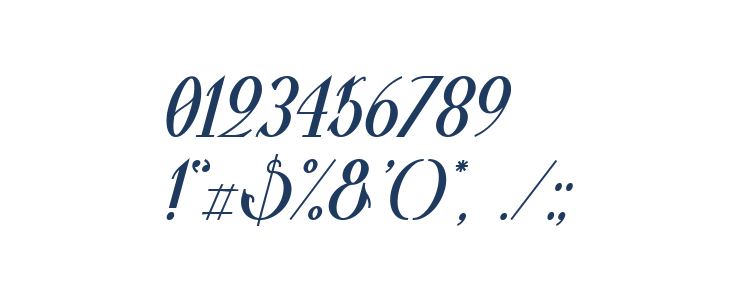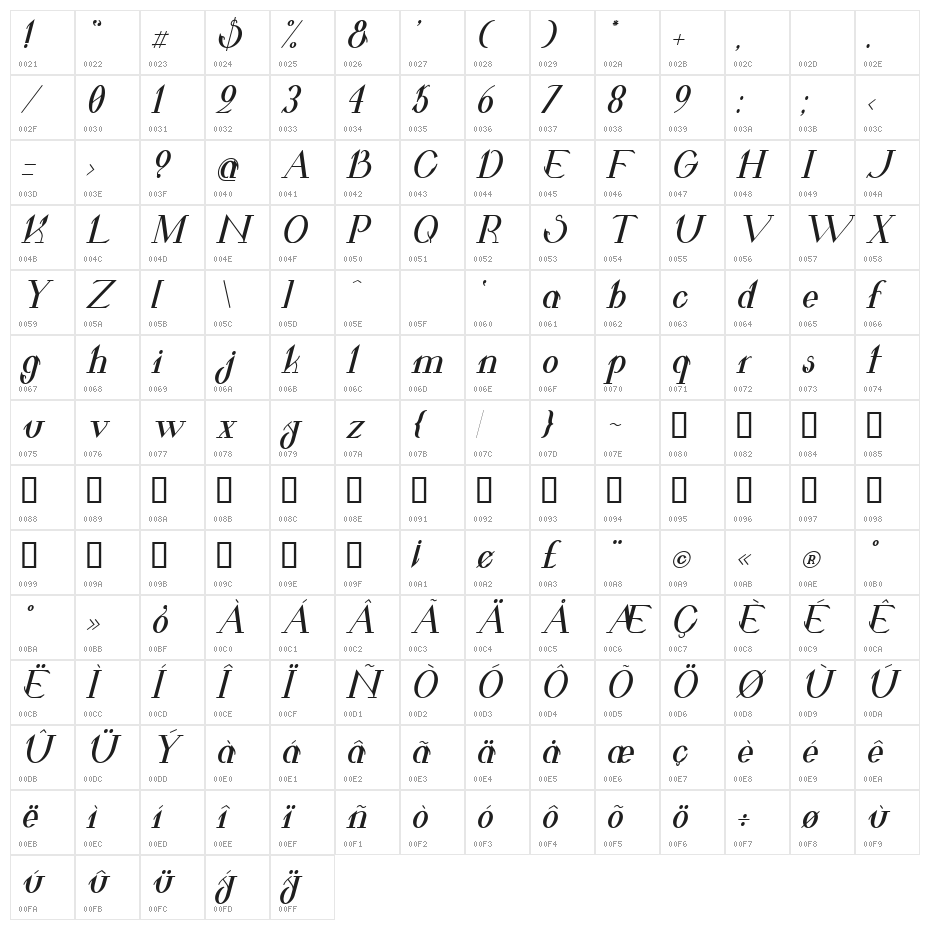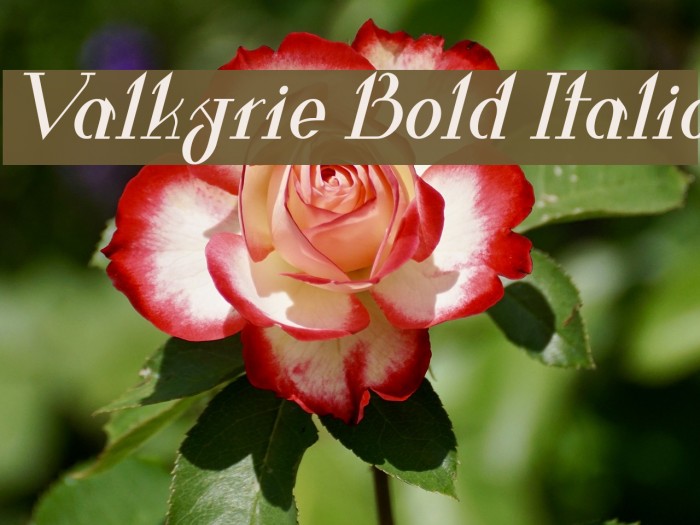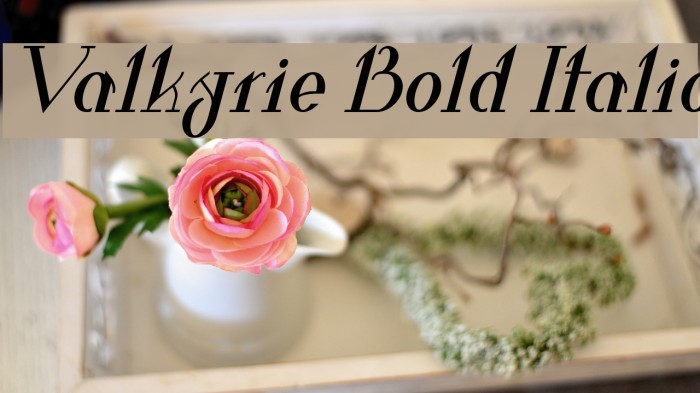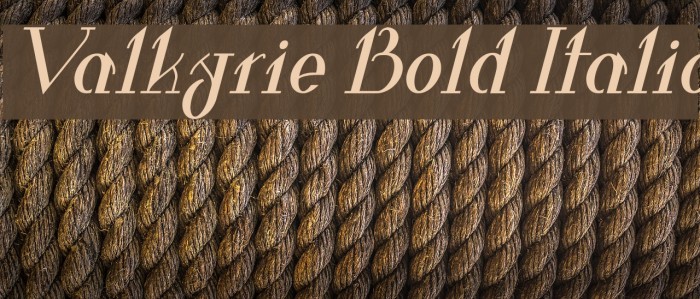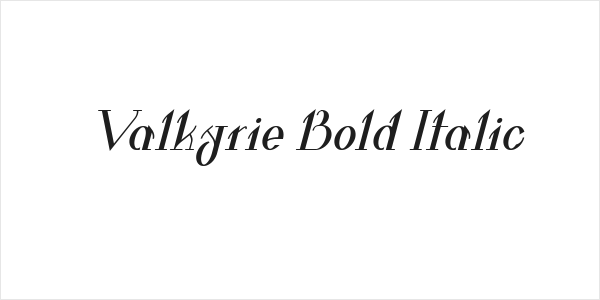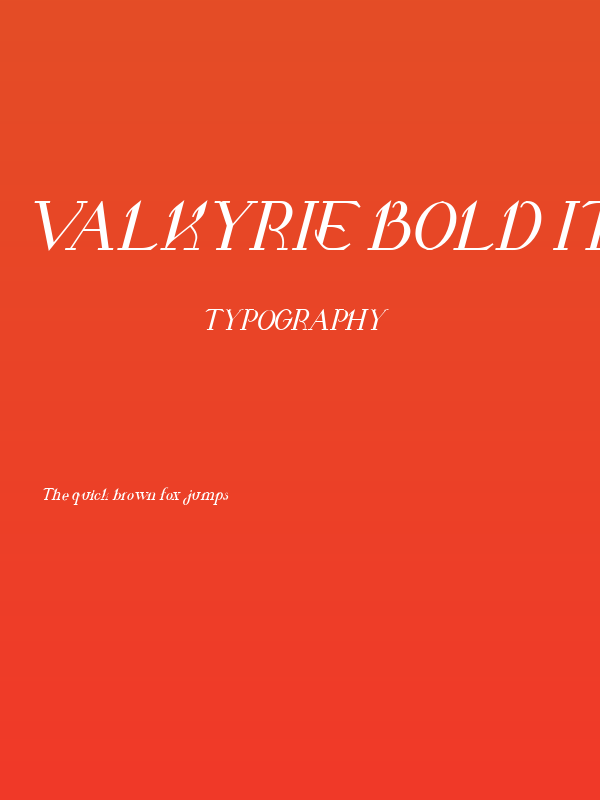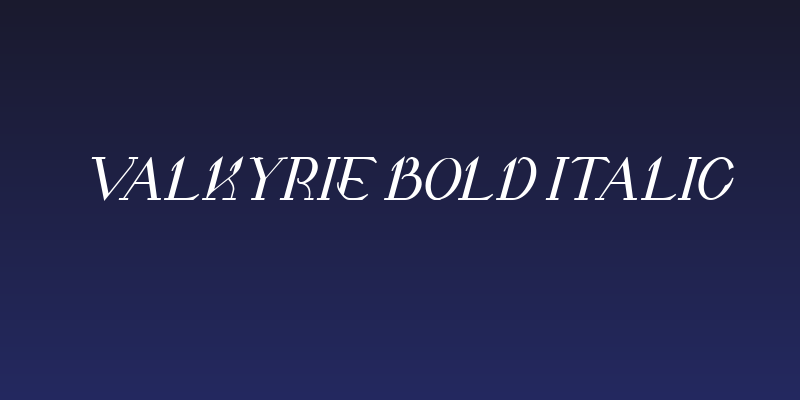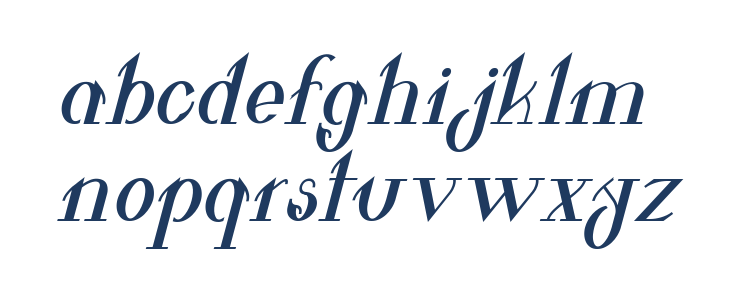
Valkyrie Bold Italic Font
Valkyrie Bold Italic Description
This font features a bold and italicized style, combining elegance with a strong presence. The uppercase letters are sharply defined with a slight slant, giving them a dynamic and sophisticated look. The lowercase letters maintain a consistent italic angle, enhancing readability while adding a touch of flair. Numbers are bold and clear, ensuring legibility. Special characters are designed with the same attention to detail, making them stand out without overpowering the text. The overall design is modern yet timeless, suitable for a variety of applications.
Use CaseHeadlines, Logos, Editorial Design
Proposed ProjectsIdeal for branding, editorial design, and advertising where a strong and elegant presence is required.